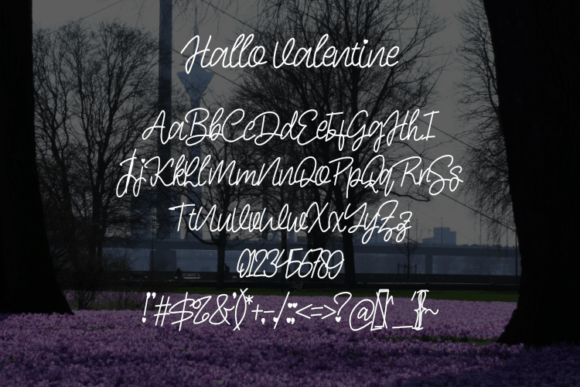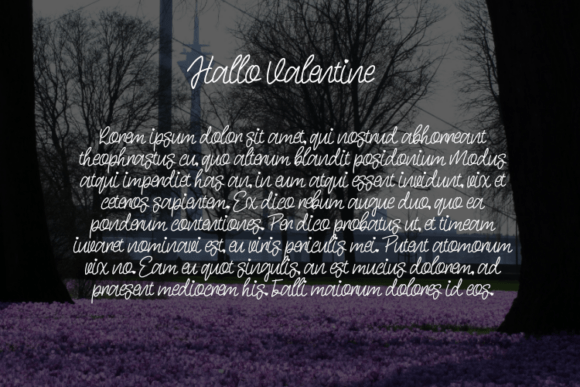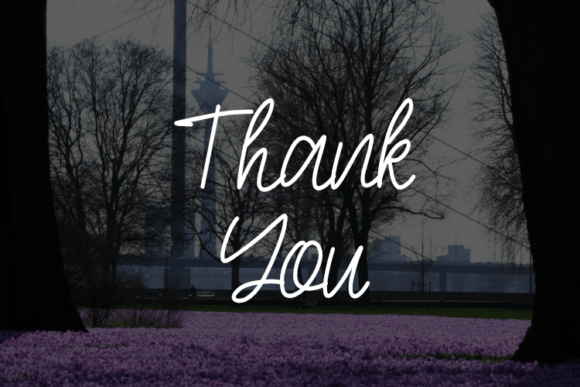
Introducing Hallo Valentine Font: The Ultimate Design Companion
Are you tired of using the same old fonts in your designs? Do you want to add a unique touch to your creativity canvas? Look no further than Hallo Valentine Font, a versatile and dynamic typeface that is a must-have for every designer and crafter. In this article, we’ll dive into the features and benefits of Hallo Valentine Font, and explore how it can elevate your designs to the next level.
A Font for Every Design Need
Hallo Valentine Font is excellently matched for clothing, t-shirt, and diverse product designs. Its unique and stylish lettering makes it perfect for creating eye-catching designs that stand out from the crowd. Whether you’re a fashion designer, a crafty DIY enthusiast, or a digital artist, Hallo Valentine Font is the perfect companion for all mediums of design expression.
Unrestricted by Design Software
Tailor-Made for Versatility and Uniqueness
Hallo Valentine Font is designed to be versatile and unique, making it perfect for a wide range of design applications. Its dynamic lettering and stylish curves make it ideal for creating:
- Fashion designs: Use Hallo Valentine Font to create stunning fashion designs, from logo designs to typography-based posters.
- T-shirt designs: Add a unique touch to your t-shirt designs with Hallo Valentine Font, perfect for creating eye-catching graphics and logos.
- Product designs: Use Hallo Valentine Font to create beautiful product designs, from packaging to branding materials.
- Digital art: Experiment with Hallo Valentine Font in your digital art projects, from illustrations to graphic designs.
Why Choose Hallo Valentine Font?
So why choose Hallo Valentine Font over other fonts? Here are just a few reasons:
- Unique style: Hallo Valentine Font has a unique and stylish lettering that sets it apart from other fonts.
- Versatility: This font is perfect for a wide range of design applications, from fashion to digital art.
- Compatibility: Hallo Valentine Font is compatible with every design platform, making it easy to use and integrate into your designs.
Let Hallo Valentine Font Speak Volumes About Your Style
Hallo Valentine Font is more than just a font – it’s a statement piece. With its unique and stylish lettering, this font can help you express your personal style and creativity. Whether you’re a designer, a crafter, or a DIY enthusiast, Hallo Valentine Font is the perfect partner for all mediums of design expression.
In conclusion, Hallo Valentine Font is a must-have for every designer and crafter. Its unique style, versatility, and compatibility make it the perfect companion for all mediums of design expression. Whether you’re creating fashion designs, t-shirt designs, or digital art, Hallo Valentine Font is the perfect choice. So go ahead, let Hallo Valentine Font speak volumes about your style, and take your designs to the next level!